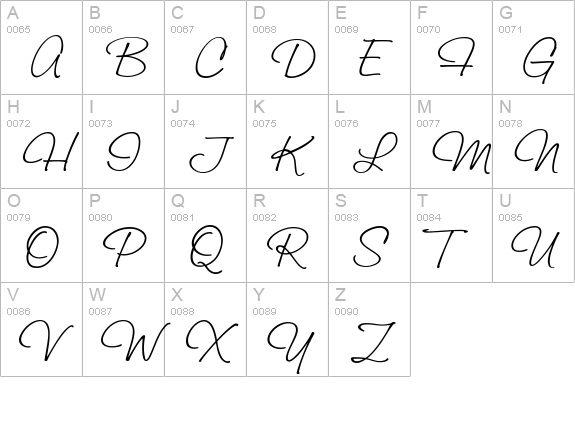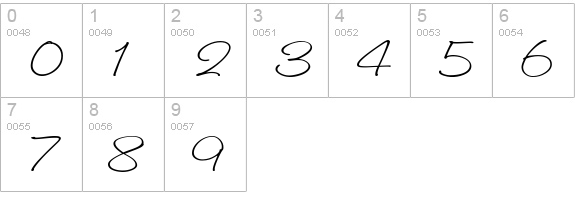
Saginaw Medium Font Details
Saginaw Medium is a balanced, medium-weight variant in the Saginaw typeface family \xE2\x80\x94 well suited to sub-headlines, navigation, and balanced editorial work.
Introducing Saginaw Medium font, a versatile typeface that strikes the perfect balance between modernity and elegance. Designed with a subtle sophistication, this font is ideal for a wide range of creative projects, from branding and advertising to editorial design and beyond. With its clean lines and well-balanced letterforms, Saginaw Medium exudes a sense of confidence and professionalism. The medium weight adds just the right amount of boldness without overpowering the overall aesthetic. Whether you're designing a logo, creating a captivating headline, or crafting a captivating editorial layout, Saginaw Medium is sure to make a lasting impression. What sets Saginaw Medium apart is its accessibility. Not only does it offer exceptional design and functionality, but it is also freely available to download at FontsMarket.com. This means that you can bring your creative vision to life without any financial constraints. Just a few clicks away, Saginaw Medium awaits your artistic touch, ready to elevate your designs to new heights. Saginaw Medium is designed with meticulous attention to detail, ensuring legibility and versatility across various platforms and sizes. Its timeless aesthetic allows it to seamlessly adapt to both digital and print mediums, guaranteeing a cohesive and polished look across all your design projects. Whether you're a seasoned designer or just starting out, Saginaw Medium is a valuable addition to your font library. Its timeless appeal, combined with its availability as a free download, makes it an invaluable resource for any creative endeavor. Experiment with different weights, pair it with other typefaces, and watch your designs come to life with the sophisticated charm of Saginaw Medium.